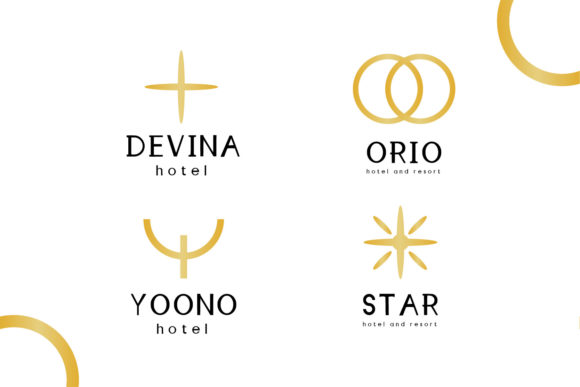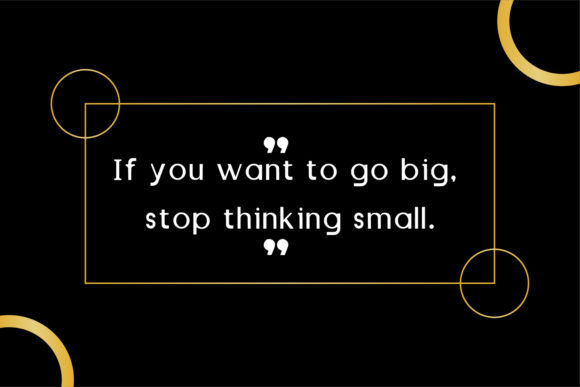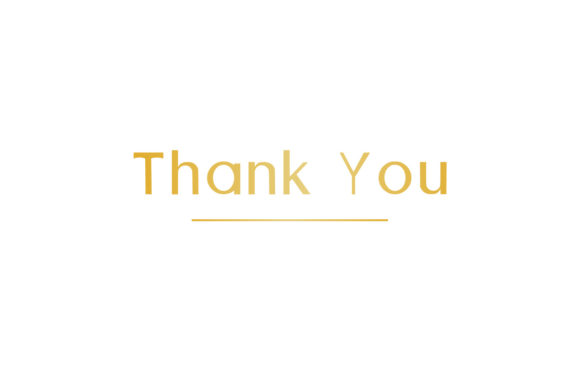
Introducing Devina Font: Elevate Your Designs with Luxurious Elegance
In the world of typography, fonts play a crucial role in conveying the tone and aesthetic of a design. For designers and crafters seeking to add a touch of luxury and sophistication to their work, Devina Font is an exceptional choice. This stunning sans serif font boasts a sumptuous and modern flow, making it perfect for a wide range of applications, from elegant invitations to business cards and logos.
The Characteristics of Devina Font
Devina Font is a masterfully crafted sans serif font that exudes elegance and refinement. Its clean lines, subtle curves, and carefully balanced proportions create a sense of luxury and poise. The font’s modern flow ensures that it remains highly legible, even at smaller sizes, making it incredibly versatile for various design projects.
Perfect for Elegant Designs
Devina Font is specifically designed to add a touch of sophistication to any design. Its elegant appearance makes it an ideal choice for:
- Invitations: Whether it’s a wedding invitation, a baby shower, or a formal gala, Devina Font sets the tone for a luxurious and memorable event.
- Thank You Cards: Express gratitude in style with Devina Font, adding a touch of warmth and sophistication to your thank you cards.
- Quotes: Make your quotes stand out with Devina Font, perfect for inspirational posters, social media graphics, or printed materials.
- Greeting Cards: From birthdays to holidays, Devina Font brings a level of elegance to your greeting cards that will make them truly special.
- Logos: Establish your brand’s luxury identity with Devina Font, suitable for high-end businesses, fashion brands, and premium services.
- Business Cards: Create a lasting impression with Devina Font on your business cards, showcasing your professionalism and attention to detail.
Why Choose Devina Font?
With so many fonts available, why choose Devina Font for your designs? Here are a few compelling reasons:
- Unique Elegance: Devina Font offers a distinctive style that sets it apart from more traditional fonts, ensuring your designs stand out.
- Versatility: Its legibility and aesthetic make it suitable for a wide range of projects, from digital graphics to print materials.
- High-Quality: Crafted with attention to detail, Devina Font provides a high level of quality that reflects in the professionalism of your designs.
Tips for Using Devina Font Effectively
To maximize the impact of Devina Font in your designs, consider the following tips:
- Pair with Complementary Fonts: For added visual interest, pair Devina Font with serif fonts or script fonts that complement its modern and elegant style.
- Experiment with Colors: While Devina Font looks stunning in black or dark colors, don’t be afraid to experiment with metallic colors, pastels, or bold hues to match your design’s theme.
- Adjust Letter Spacing: For a more customized look, adjust the letter spacing to create a unique flow that suits your design.
Devina Font is a luxurious sans serif font that can elevate your designs to new heights of elegance and sophistication. Its modern flow, combined with its sumptuous appearance, makes it an excellent choice for designers and crafters looking to add a touch of luxury to their work. Whether you’re creating invitations, logos, business cards, or any other design that requires a touch of elegance, Devina Font is sure to impress.
Discover the versatility and beauty of Devina Font and take your designs to the next level of luxury and refinement.